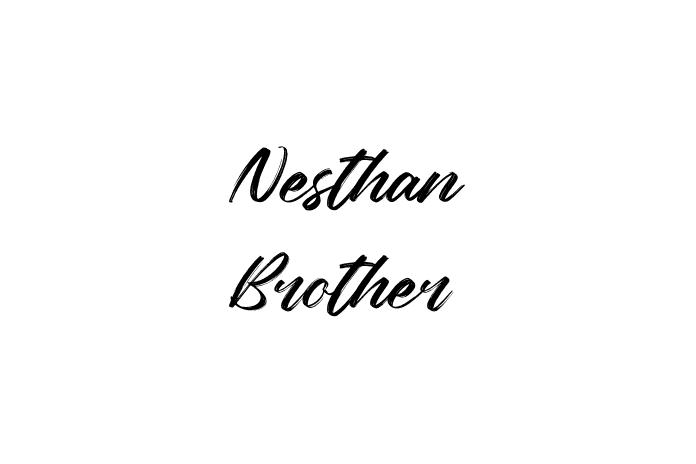
Thomson Signate
Thomson Signate – Beautiful signature Font, from Afterpaper Studio, is a beautiful script font, suitable for any projects such as logos, branding projects, homeware designs, product packaging, mugs, quotes, posters, shopping bags, t-shirts, book covers, name card, invitation cards, greeting cards, label, photography, watermark, special events, and all your other lovely projects that need a beautiful script taste.
Font designer Afterpaper
Font Family Thomson Signate
Typeface classification Script